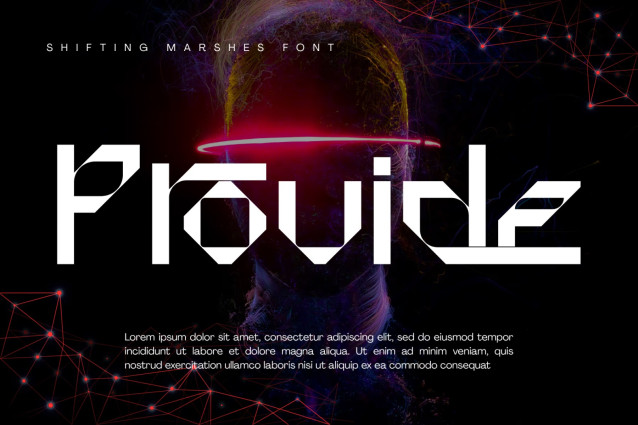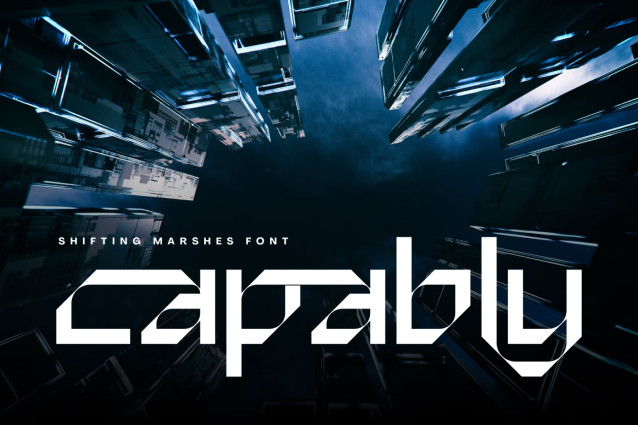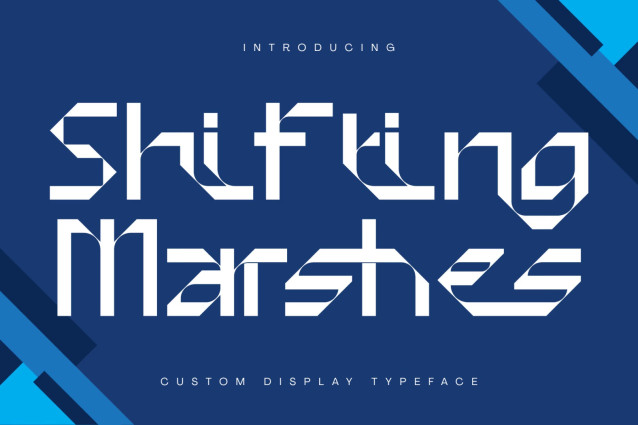
Shifting Marshes Demo Font
Shifting Marshes – Tech Font is a futuristic display font crafted for designers who want to create bold, modern, and technology-inspired visuals. Featuring geometric letterforms, angular cuts, segmented strokes, and a clean modular structure, this typeface combines minimalism with a powerful cyber aesthetic. Every character is carefully designed to deliver a sleek, digital appearance while maintaining excellent readability and a distinctive visual identity.
Designed for innovation and creativity, Shifting Marshes is perfect for technology branding, gaming titles, esports logos, sci-fi movie posters, AI projects, software interfaces, startup branding, automotive graphics, robotics, digital products, album covers, packaging, and futuristic editorial layouts. Its sharp geometric construction and contemporary style make it an excellent choice for projects that demand a professional, modern, and forward-thinking look.